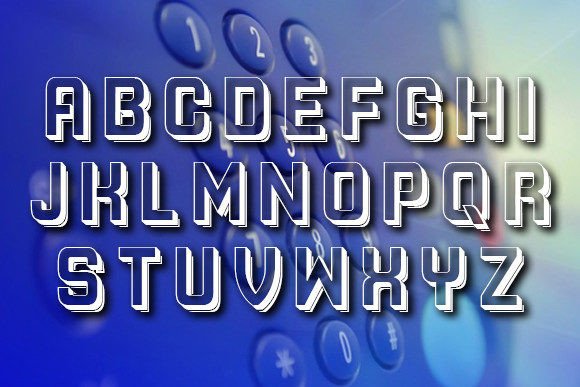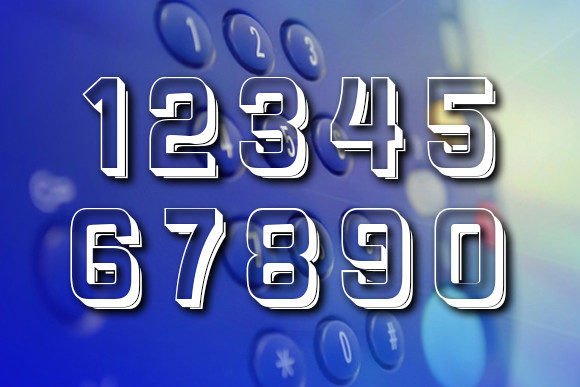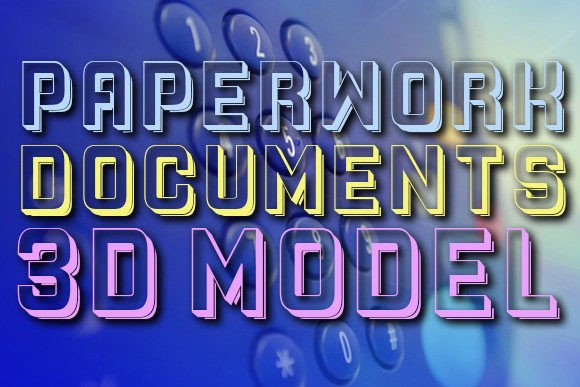
Introduction to Printer Font
You’re in the midst of a creative project, pouring over design elements and typography to bring your vision to life. Suddenly, the perfect font strikes – one that exudes a sense of professionalism and high quality, elevating your entire design. For designers seeking that elusive finishing touch, we have just the thing: the Printer Font.
This versatile and stylish font is a game-changer for any creative endeavor. Its unique, squarish design makes it perfect for posters, brochures, and flyers, giving your designs a distinctive edge. And the best part? You can download the Printer Font for free, making it an invaluable resource for any design project.
Whether you’re working on a small-scale campaign or a large-scale project, the Printer Font is an essential addition to your design arsenal. With its transparent background and modern aesthetic, it’s the perfect tool to help you achieve a high-quality finish.
Key Features of Printer Font
- High-quality font suitable for creative projects, with a clear and readable design.
- Designed with a transparent background, allowing for seamless integration with images and other design elements.
- Unique characteristic: Designed specifically for use in creative projects, such as print-on-demand products, invitations, and business cards.
Honest Review: Printer Font
I recently came across Printer Font, and I’m excited to share my thoughts on this free download. As a designer, I’m always on the lookout for high-quality resources to enhance my creative projects. Printer Font definitely fits the bill.
- Clear and readable typography: Printer Font offers a range of fonts with transparent backgrounds, making it easy to use them in various design contexts.
- High-quality design: The font is well-crafted, with clean lines and a professional look that’s perfect for print materials.
- Limited font styles: While Printer Font offers a range of fonts, the selection is not exhaustive, and you may not find the perfect match for every project.
- Not ideal for digital use: Due to its print-oriented design, Printer Font may not be the best choice for digital projects, such as websites or social media graphics.
Overall, I’m impressed with Printer Font’s high quality and versatility. While it may have some limitations, it’s a great resource for designers working on print projects. With a little creativity, you can make the most of this free download and elevate your designs.
Tips for Getting the Most Out of Printer Font
Use a transparent background to make the font stand out in your design. Experiment with different font sizes and styles to find the perfect fit for your creative project. Use the font in conjunction with other design resources, such as images and shapes, to create a visually appealing design.
The Printer Font is commonly used in creative projects, such as brochures, business cards, and presentations. It is also used in design resources, such as templates and graphics, to add a touch of elegance and sophistication. Be sure to use the font in a way that is consistent with your brand and design style.
Q: Can I use Printer Font for digital applications, or is it limited to print-only use?
While Printer Font is designed for printing purposes, it can also be used in digital applications, such as web design or presentation software. However, keep in mind that the font may not render as well on digital screens as it would on printed materials. It’s essential to test the font in different digital environments to ensure